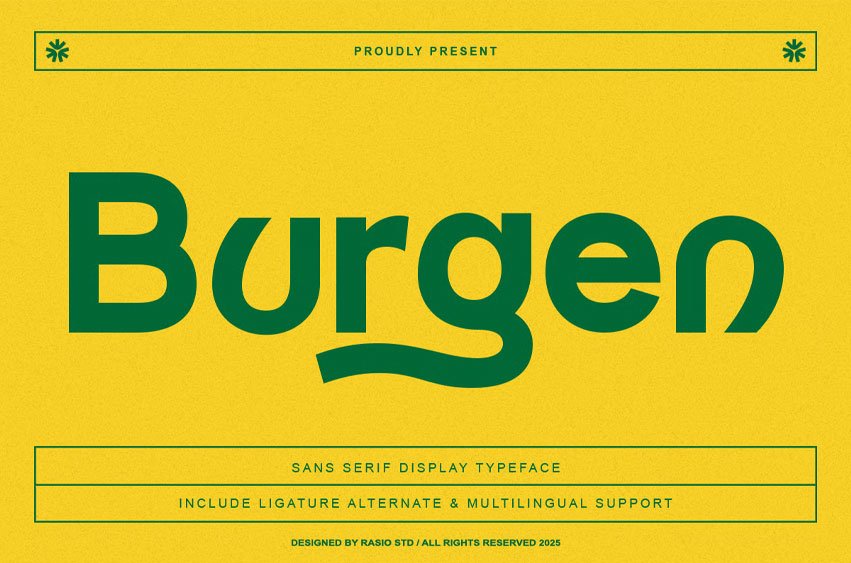
Burgen Font is a bold and confident sans serif display typeface crafted with playful geometry and clean construction. It captures the spirit of modern design through thick curves, sharp edges, and dynamic letter alternates that make any word pop with energy.
Perfectly balanced between friendliness and strength, Burgen brings personality to branding, packaging, and editorial compositions. This font includes uppercase, lowercase, numbers, punctuation, alternates, ligatures, and multilingual support giving designers full flexibility for striking typographic compositions in both print and digital formats.
Relevance and Use Cases is perfect for branding, packaging, poster headlines, food and beverage designs, and modern advertising layouts. Burgen stands out with its bold presence and approachable forms — making it ideal for creative campaigns that need both impact and personality.
- Ligatures & Alternate